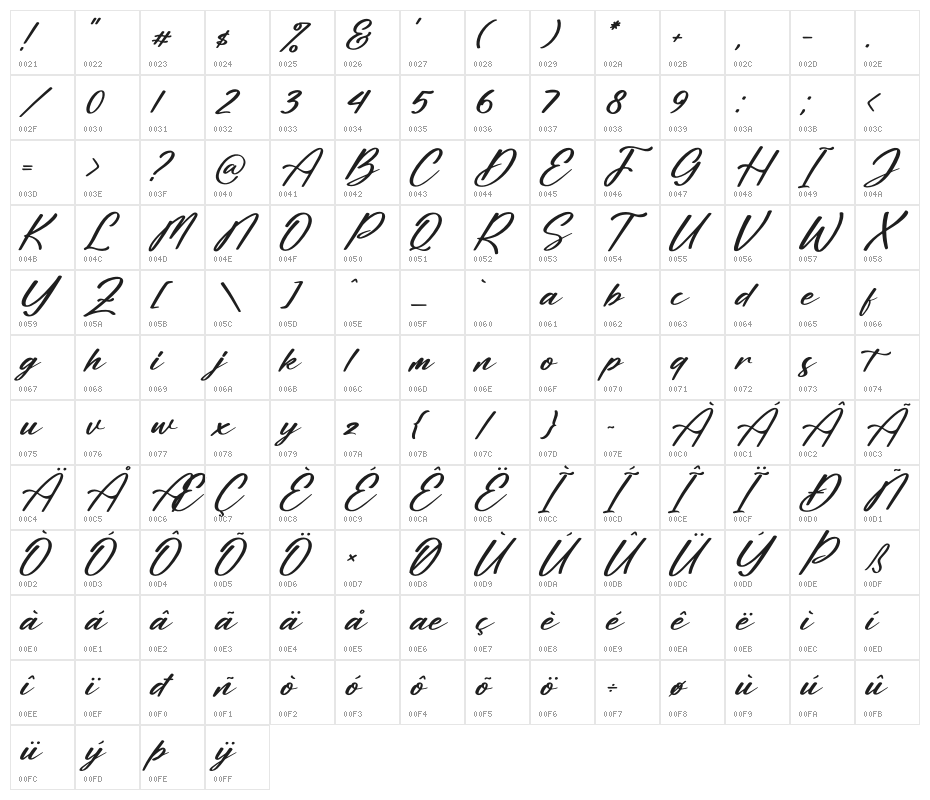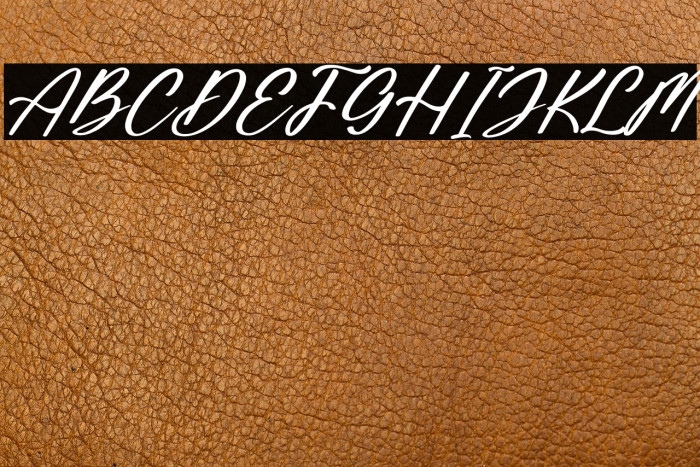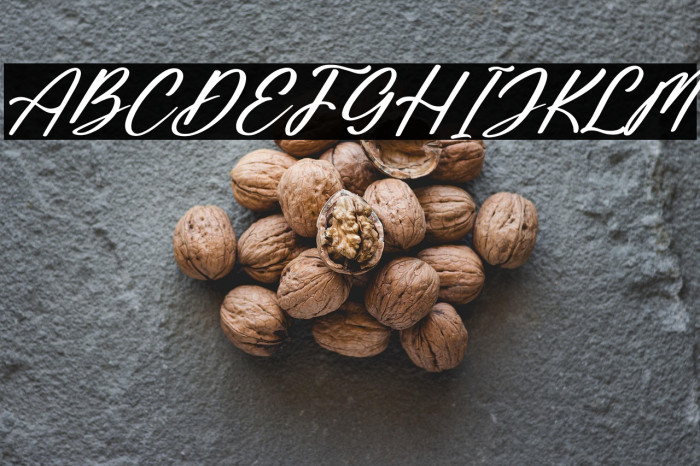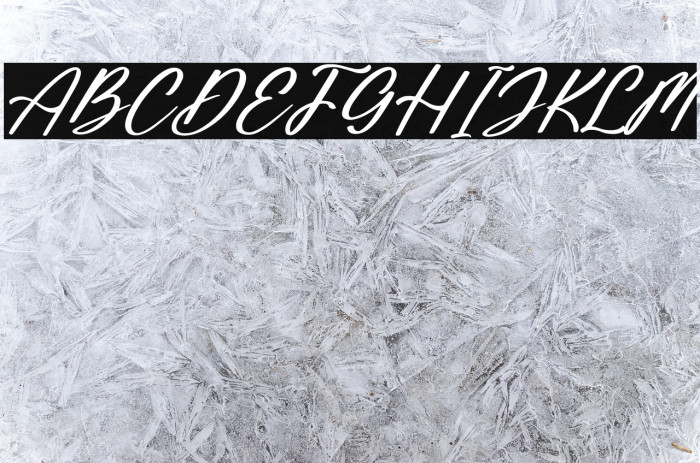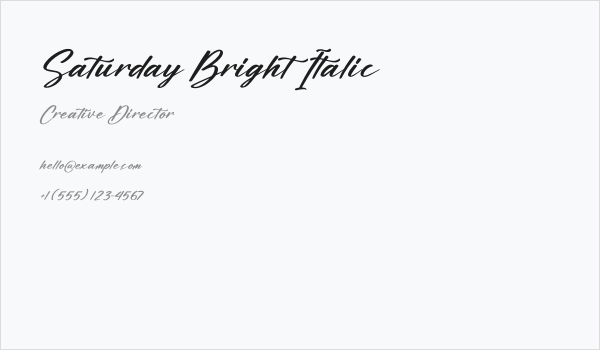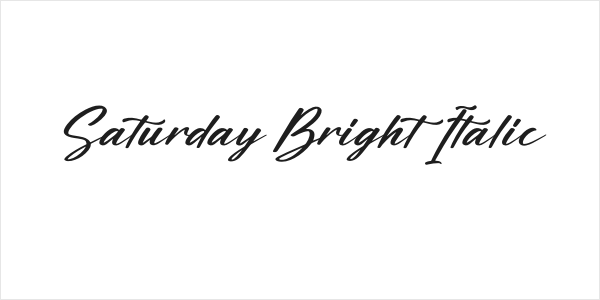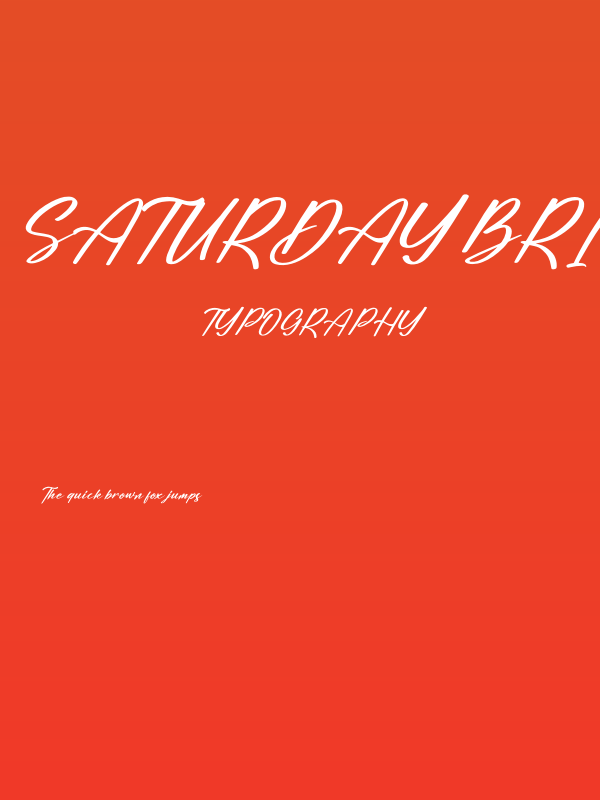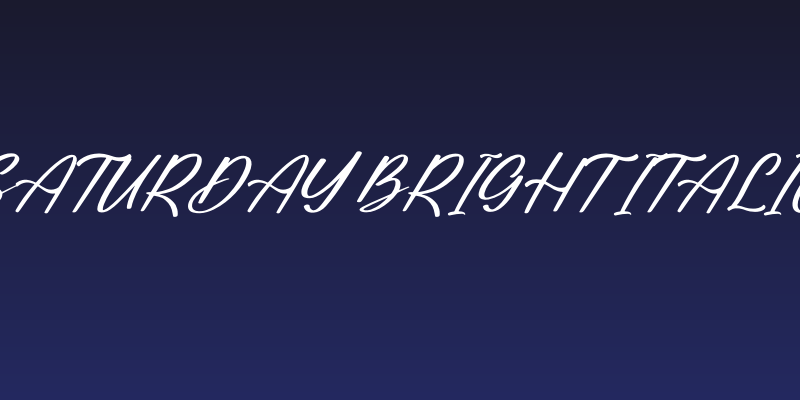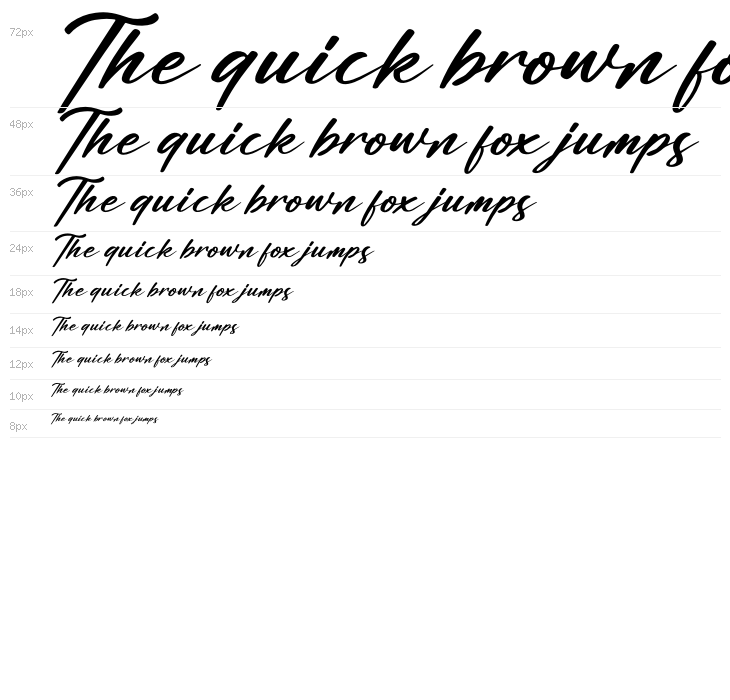
Saturday Bright Italic Font
Saturday Bright Italic Description
This font features a flowing, cursive style with a modern flair. The letters are elegantly connected, creating a sense of movement and fluidity. The uppercase characters are slightly more ornate, with sweeping curves and loops, while the lowercase letters maintain a consistent rhythm. The numbers are clear and legible, matching the overall aesthetic. Special characters are thoughtfully designed to complement the script style, making them suitable for a variety of uses. The italic slant adds a dynamic touch, enhancing the font's expressive nature.